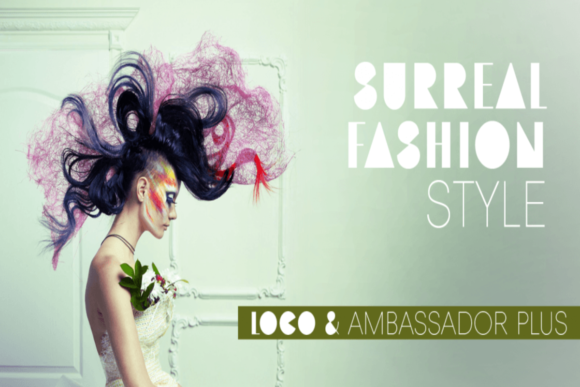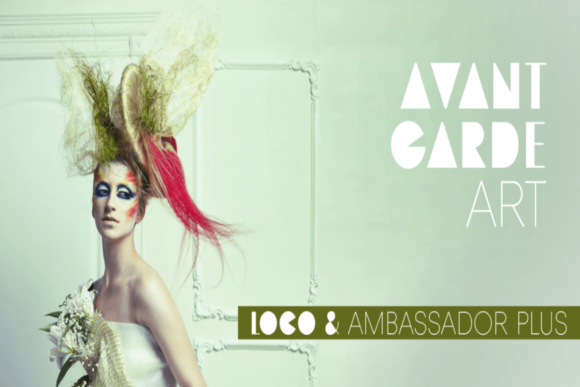
Introduction to Loco Font
Enter the Loco Font, a stunning art deco typeface that’s about to become your new go-to for anything that needs to look bold, noticeable, and up-to-date. With its simple geometric forms and high-quality design, Loco Font is the perfect addition to any designer’s toolkit, offering a flexible and creative solution for everything from posters and flyers to magazines and more.
Key Features of Loco Font
- High-quality, vector-based font design, perfect for a creative project requiring a unique touch.
- Unique, hand-crafted design aesthetic, setting it apart from other free fonts and making it a standout design element.
Honest Review: Loco Font
I recently stumbled upon Loco Font while searching for a high-quality design resource to enhance a creative project. As a designer, I was excited to see what this font had to offer.
One of the standout features of Loco Font is its unique aesthetic, which sets it apart from other fonts in the market. I particularly love the creative and quirky feel it brings to a design. The transparent background also makes it easy to customize and integrate with other design elements.
Here are some pros and cons of using Loco Font:
- ✨ Unique and creative aesthetic that adds a touch of personality to a design.
- ✨ Easy to customize and integrate with other design elements.
- ⚠️ Limited font styles and variations, which may not be suitable for larger-scale projects.
- ⚠️ May not be suitable for formal or professional designs due to its quirky nature.
Overall, I’m impressed with Loco Font and its potential to elevate a design. However, I do wish there were more font styles and variations available. If you’re looking for a fun and creative design resource, Loco Font is definitely worth checking out. Just be sure to use it in the right context!
Loco Font is a high-quality design resource offering a vast collection of creative project fonts, available for free download. With a transparent background, Loco Font is perfect for any design project that requires a unique and eye-catching font.
To maximize the use of Loco Font, experiment with different font combinations and styles. Use the font in conjunction with other design elements to create a visually appealing and cohesive design.
Common Use Cases for Loco Font
Loco Font is perfect for a variety of creative projects, including social media graphics, blog posts, and marketing materials. Its unique and high-quality design makes it an ideal choice for any project that requires a professional and eye-catching look.